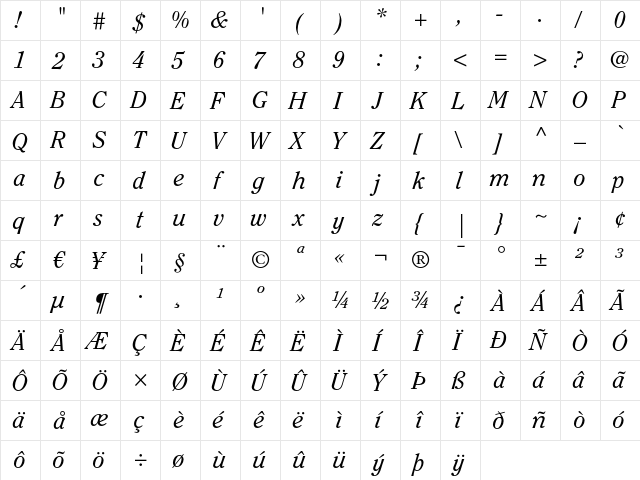
ITC Clearface LT Regular Italic
Design Context for ITC Clearface LT Typeface
ITC Clearface LT is a composed and adaptable typeface that performs quietly and consistently across a wide range of design contexts. The dynamic lean of this cut emphasises speed and emphasis in any layout. The delicate stroke weight brings airiness and refinement to layouts.
Pro Tip: Use ITC Clearface LT for emphasis, pull quotes, and subheadings where its slanted energy can add rhythm to the layout.